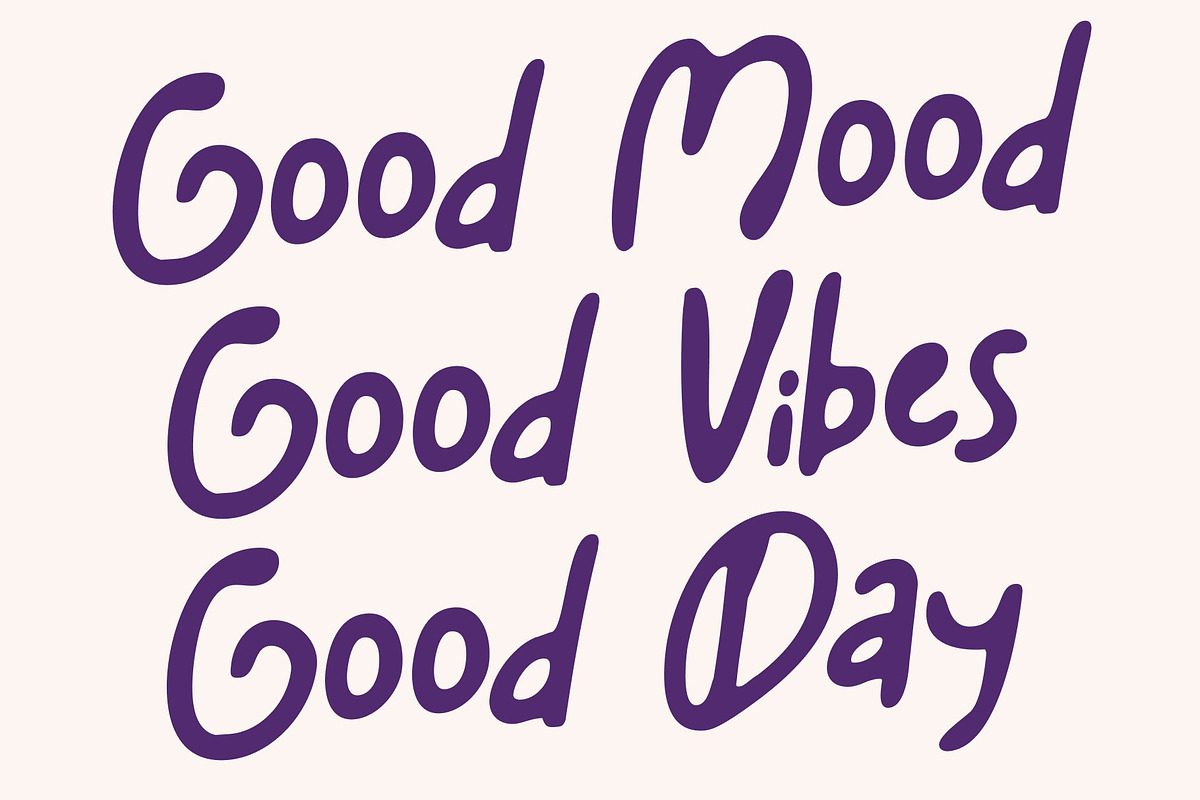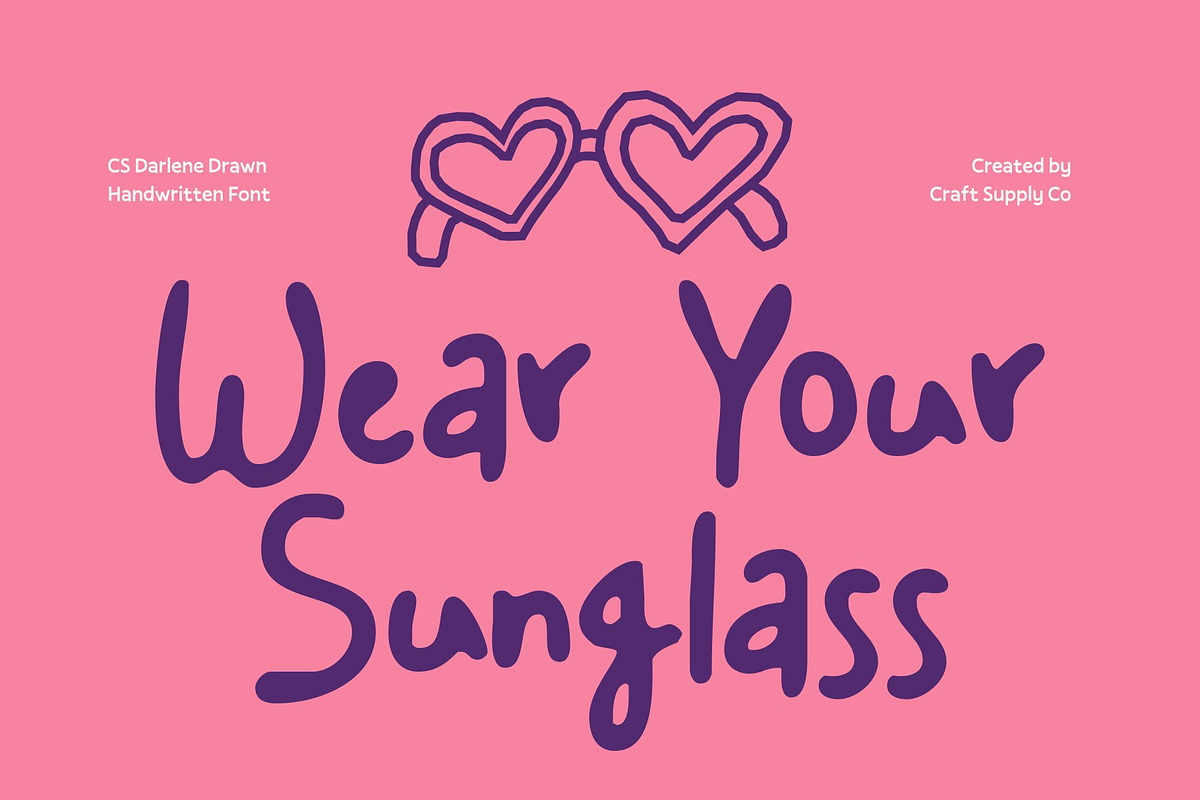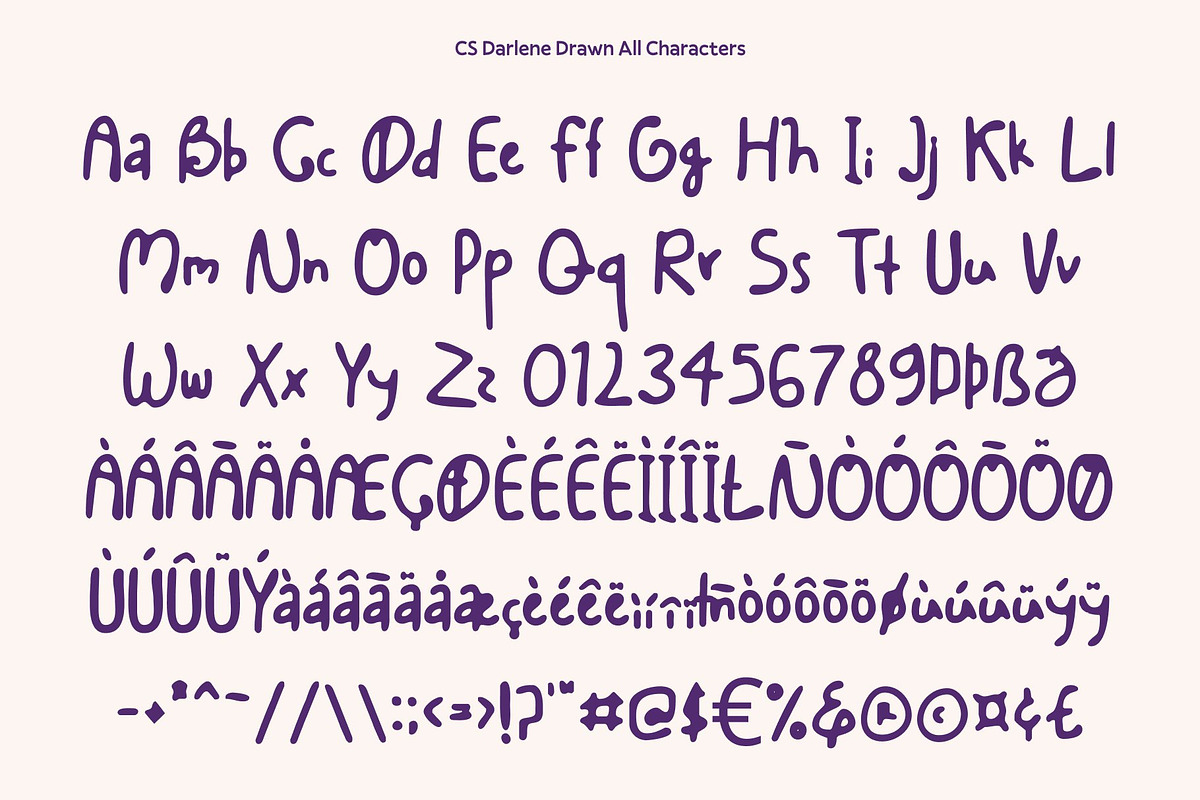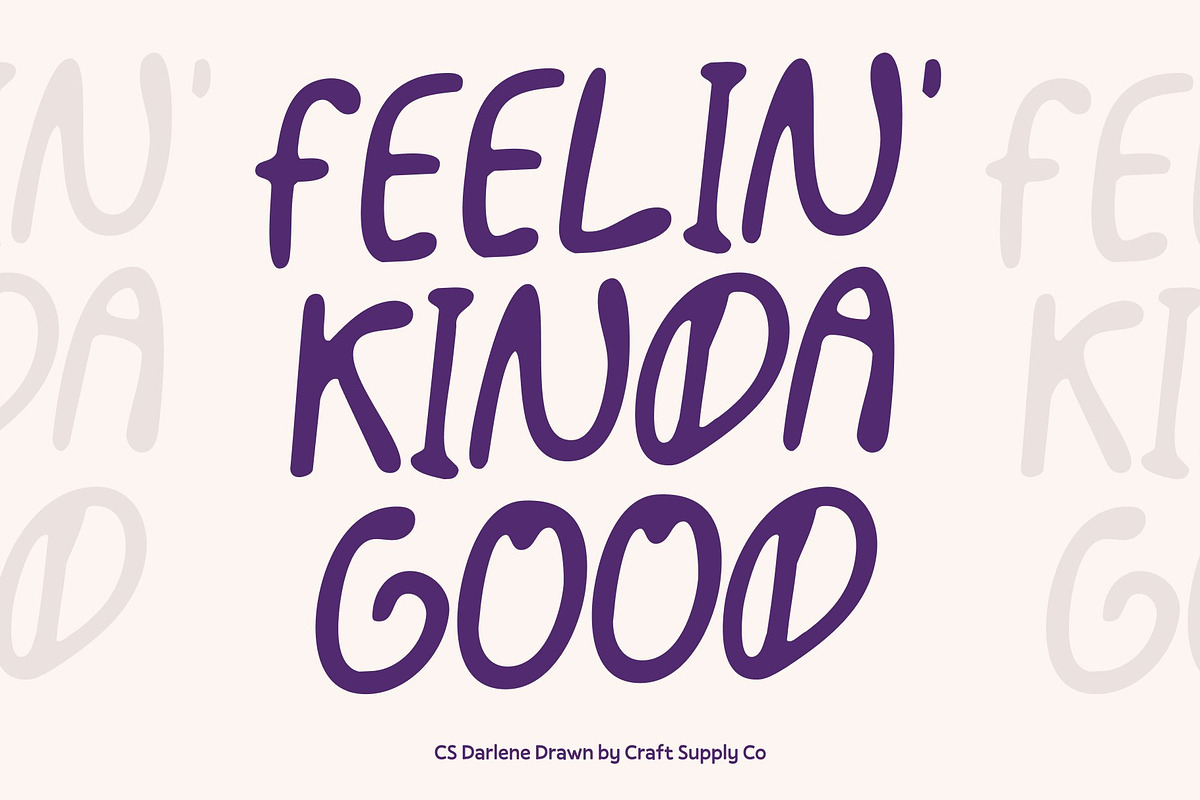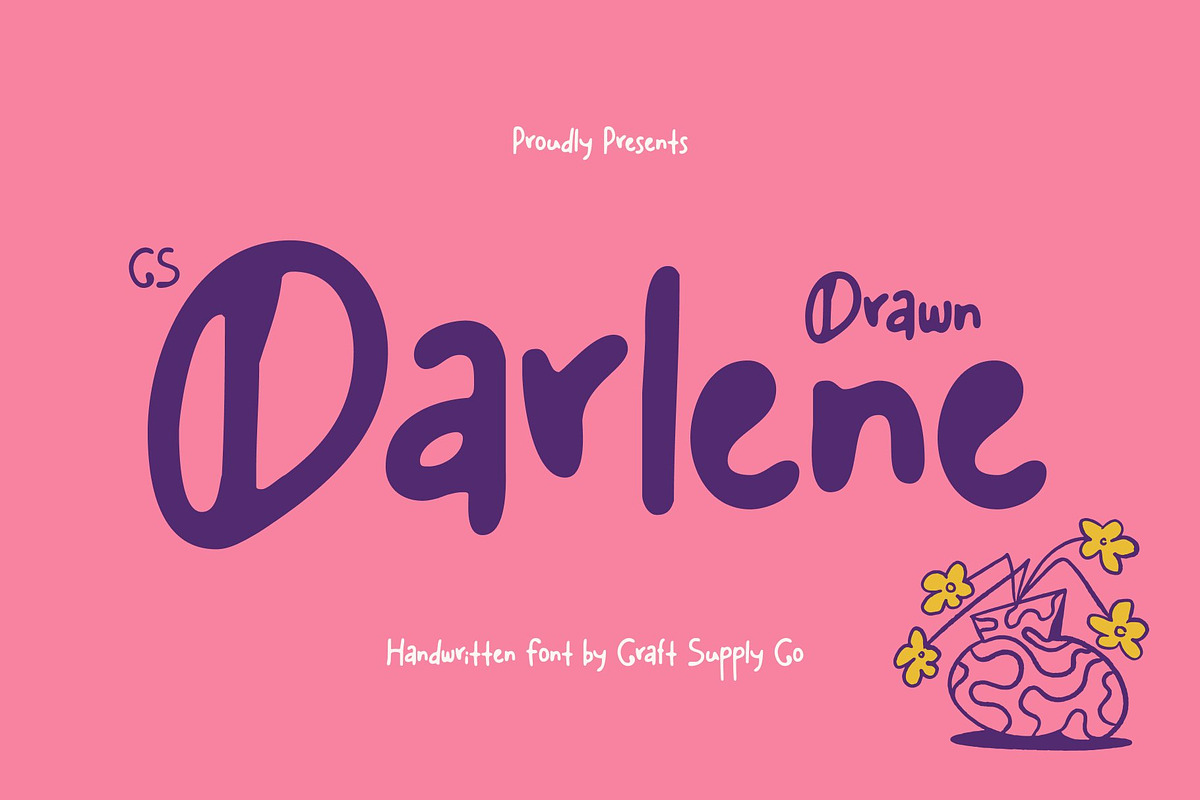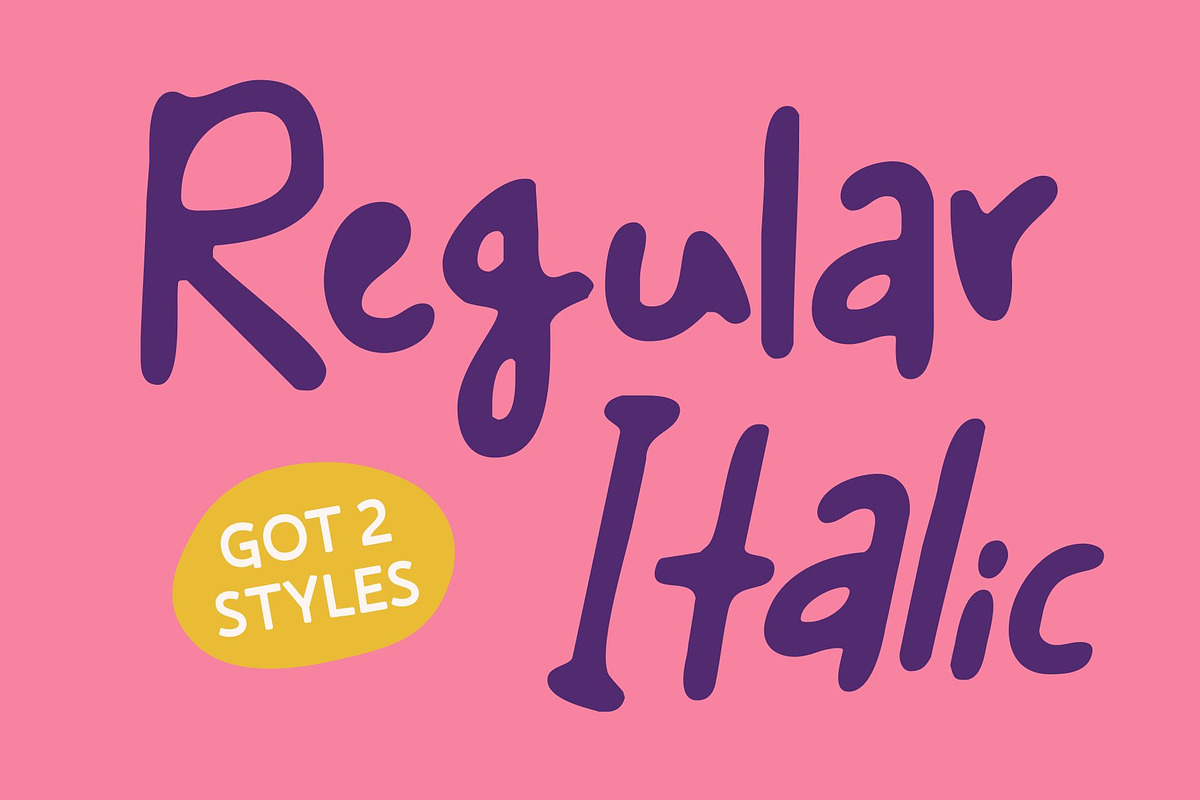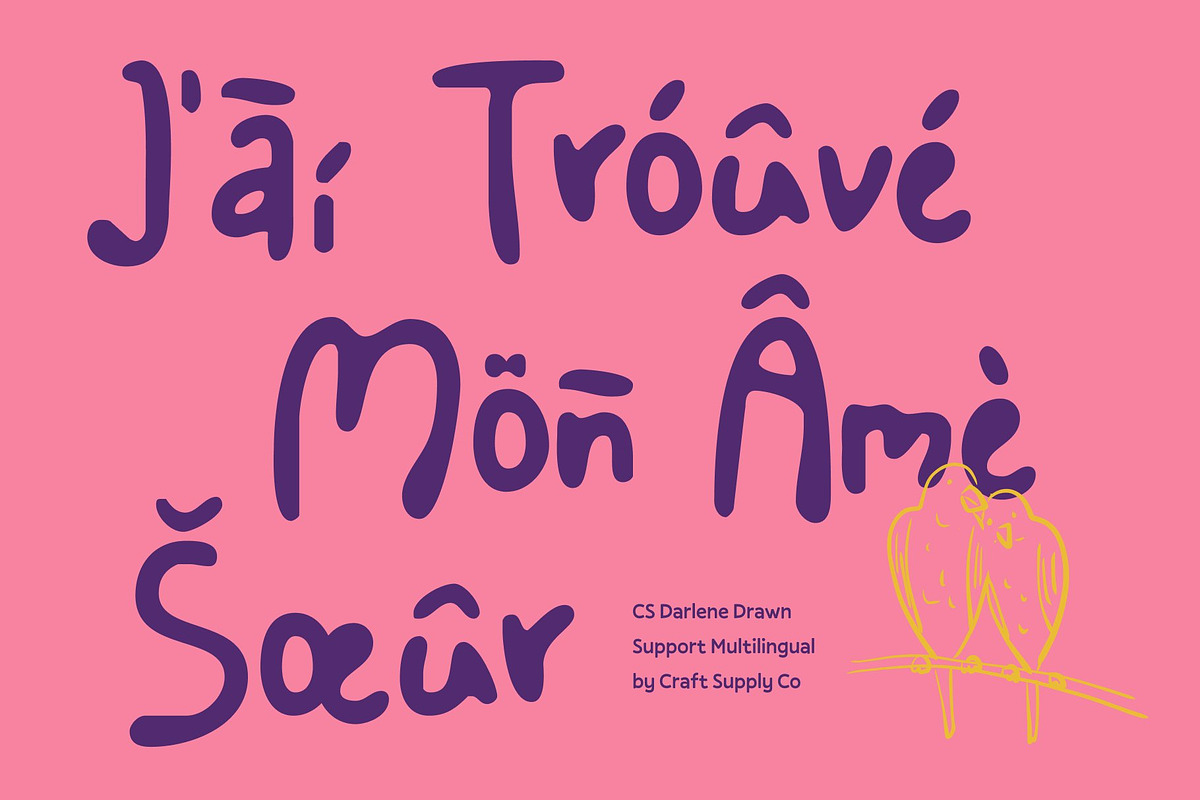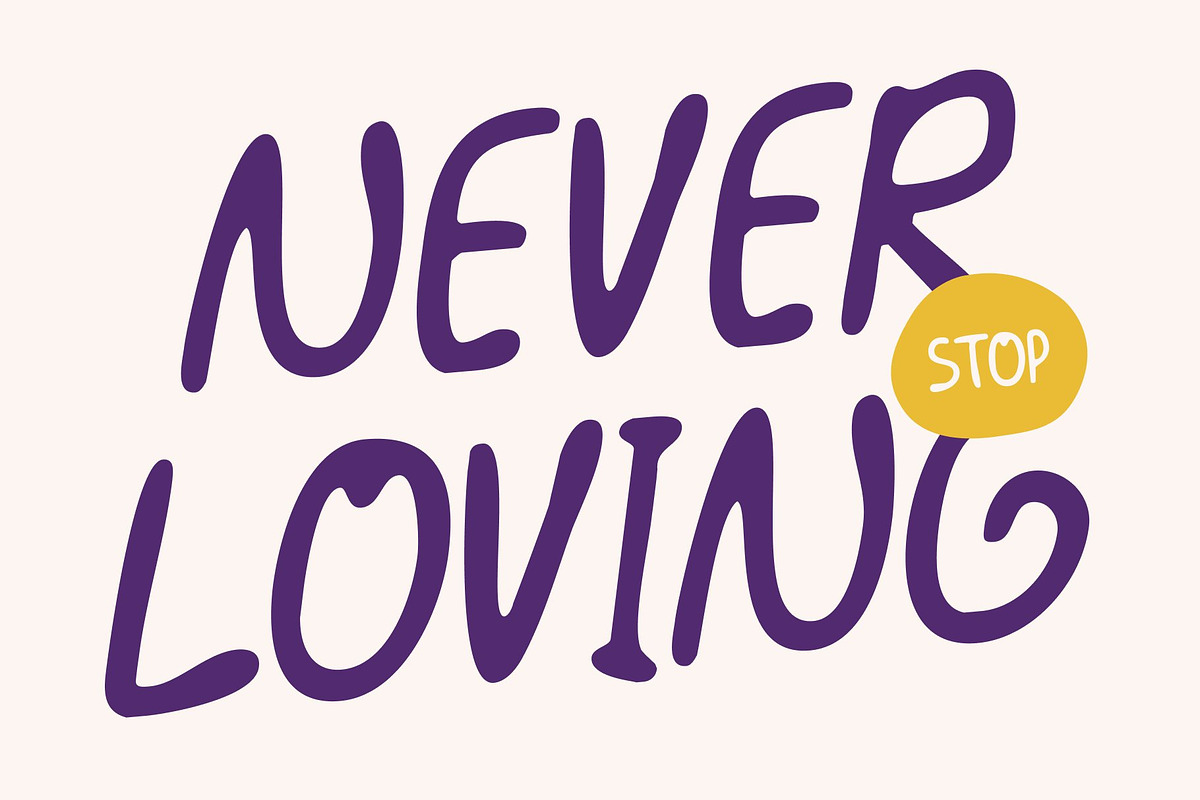
CS Darlene Drawn
CS Darlene Drawn – Bad Handwritten Font Bursting with Playful Energy
Imperfectly Expressive with Raw Personality This font embraces the beauty of imperfection. As a “bad handwritten” font, it features quirky, uneven letterforms, overflowing ink strokes, and irregular shapes that bring spontaneity and charm to every design. Each character exudes personality, adding a human, authentic touch that feels lively, rebellious, and full of life.
Playful Imperfection for Creative Freedom Its intentionally rough and unpolished style transforms flaws into features. The uneven strokes and irregular forms convey motion, energy, and carefree expression, giving your designs a bold, dynamic, and unconventional aesthetic. Perfect for projects that want to feel casual, fun, and effortlessly creative.
Friendly, Energetic, and Uniquely Vibrant With its natural texture and overflowing energy, this font radiates friendliness and youthful charisma. Its expressive letterforms create visual rhythm and personality, turning imperfections into a distinctive visual voice that commands attention.
Ideal for Youthful, Casual, and Bold Projects From posters and greeting cards to casual branding and playful editorial designs, this font thrives wherever energy, authenticity, and spontaneity are needed. This font is the perfect choice for designers seeking a hand-drawn font that’s unapologetically bold, quirky, and full of charm.